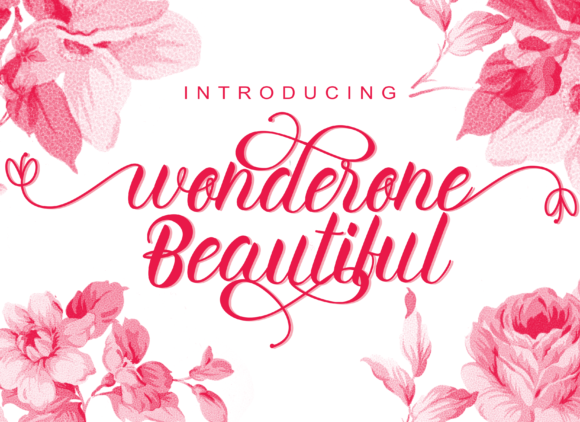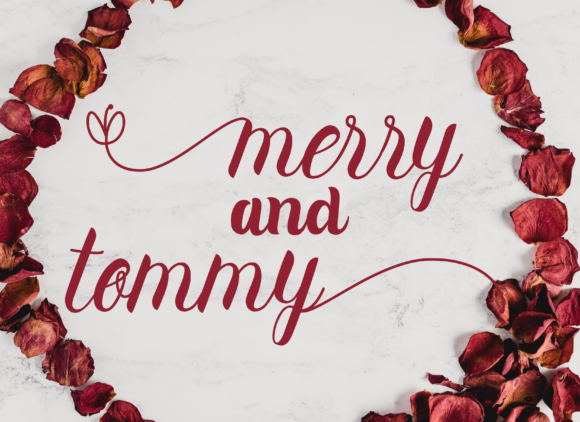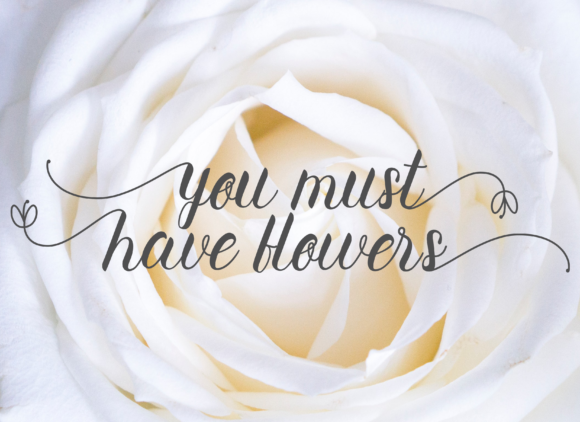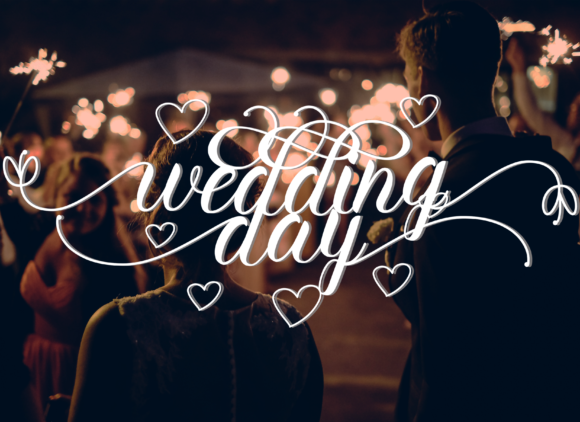
About Wonderone Beautiful Font
Wonderone Beautiful is a sweet, soft hand-lettered script. The playful rounded characters make it the perfect font for creating stunning crafting art. Wonderone Beautiful comes packed with PUA encoded glyphs, that will allow you to add a decorative touch within seconds. Fall in love with its authentic feel and use it to create gorgeous wedding invitations, beautiful stationary art, eye-catching social media posts, and cute greeting cards.